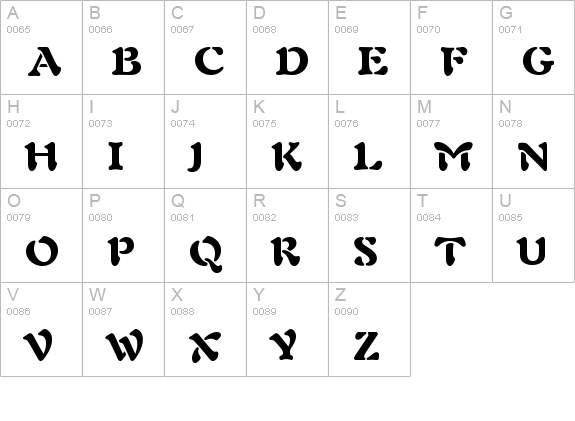
Freeform 721 Black Font Details
Freeform 721 Black is a maximum-weight, dramatic variant in the Freeform typeface family \xE2\x80\x94 well suited to maximum-impact headlines, posters, and packaging.
Introducing Freeform 721 Black, a modern and sleek typeface that exudes sophistication and elegance. This versatile font is perfect for creating bold and impactful designs that demand attention. With its clean lines and distinct style, Freeform 721 Black is ideal for a wide range of projects, from branding to editorial design. What sets Freeform 721 Black apart is its seamless fusion of classic and contemporary elements, making it a timeless choice for any design endeavor. Whether you're working on a poster, logo, or website, this font will elevate your project to new heights. The best part? Freeform 721 Black is available for free download exclusively at FontsMarket.com. So go ahead and unleash your creativity with this stunning typeface that is sure to make a lasting impression.